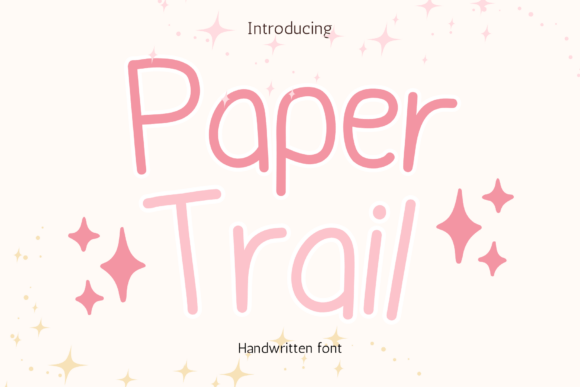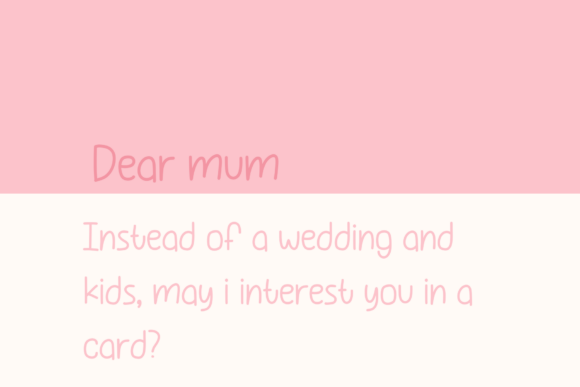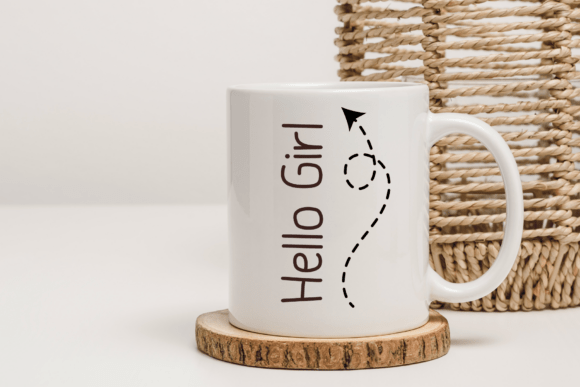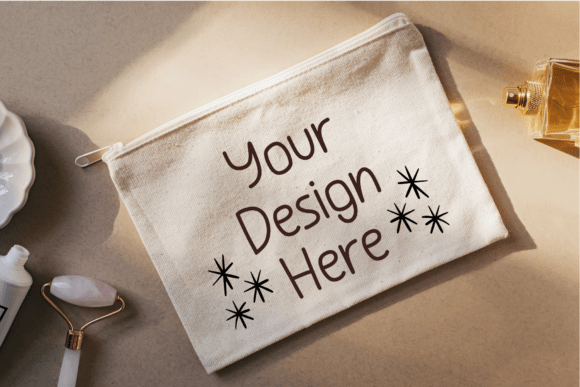
Paper Trail Font: A Cute Handwritten Font for DIY Crafts
About the Paper Trail Font
Experience the unique personality of Paper Trail Font, a font designed for impact. Paper Trail is a handwritten font. It embodies playfulness and authenticity and is the perfect choice for all your favorite projects, or even for blog posts, logos, branding, ads, invitations, greeting cards, planners, photo albums, decorations, and much more. Add it to any of your designs, and enjoy the results!
Paper Trail’s playful, authentic feel makes it ideal for projects requiring a hand-crafted touch, such as logos, short headlines, invitations, or packaging design where its casual charm can shine. It works particularly well for brands targeting a younger demographic or conveying a friendly, approachable message. However, its informal nature makes it less suitable for large blocks of body text or UI elements where readability is paramount.
Pairing Paper Trail effectively depends on the desired outcome. For a balanced design, consider pairing it with a clean sans-serif like Open Sans for body text or a more geometric sans-serif for a modern contrast. To emphasize the handwritten feel, a delicate script font could enhance the overall aesthetic. Conversely, a strong serif font would provide a sophisticated counterpoint.
Ultimately, Paper Trail’s personality is best described as friendly and approachable, yet slightly informal. Its strength lies in its ability to add a personal touch without sacrificing visual appeal in short, impactful applications.
Paper Trail Font Usage Examples
Paper Trail Font Example